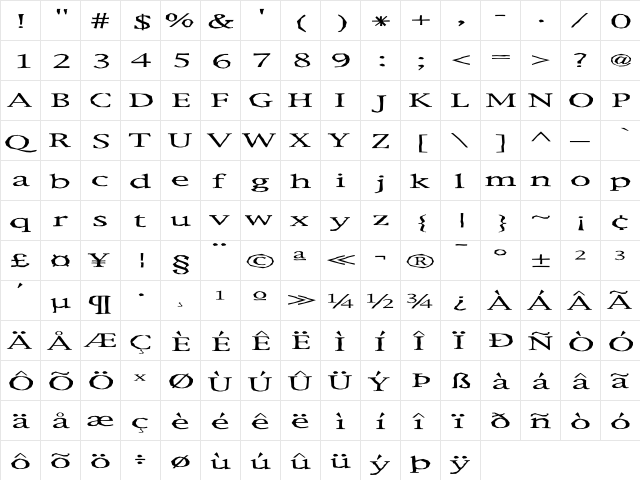
Metaphor Regular
Design Context for Metaphor Typeface
Metaphor takes a measured approach to typography — its balanced proportions and neutral character make it a reliable workhorse for both digital and print work.